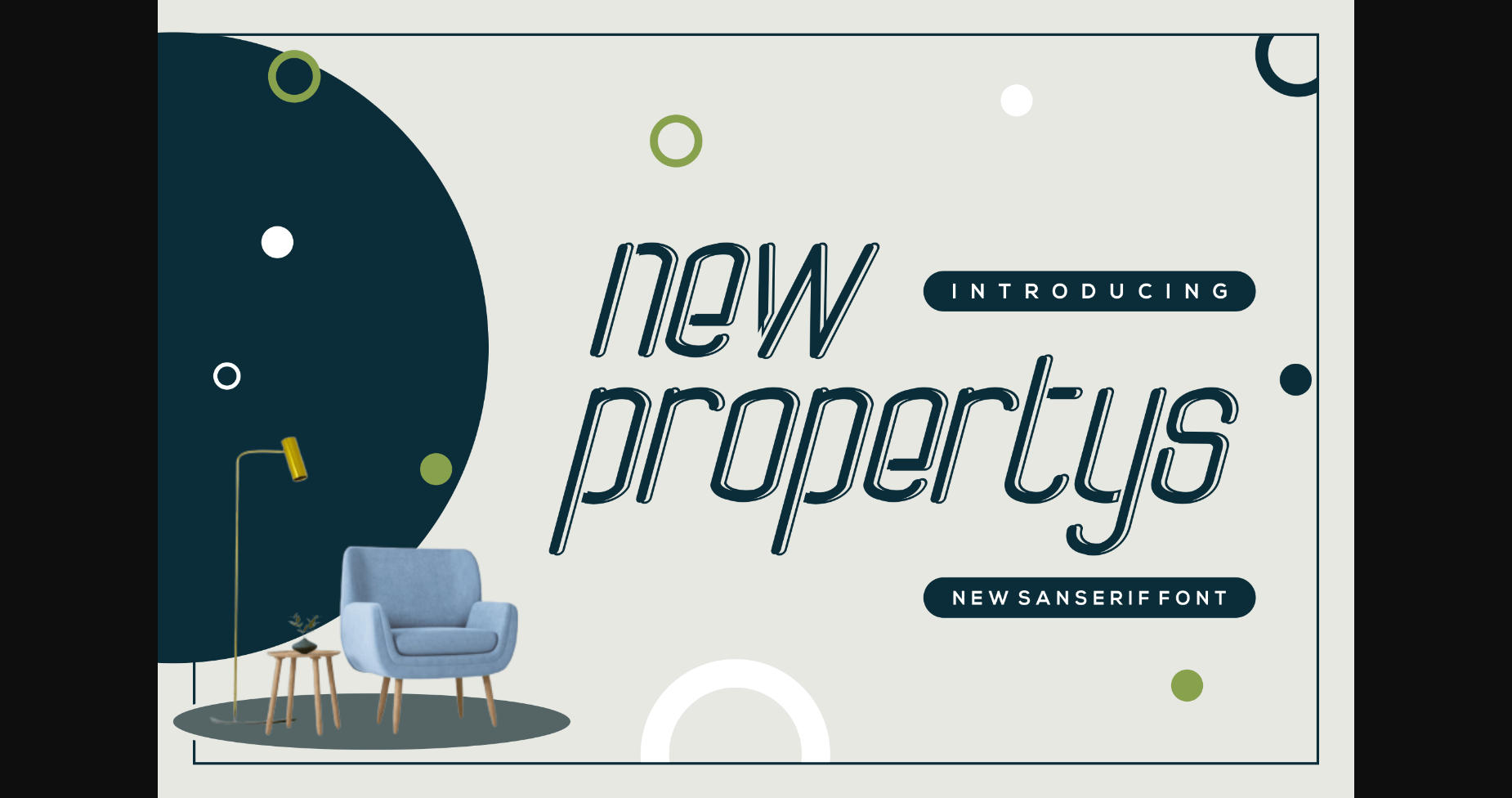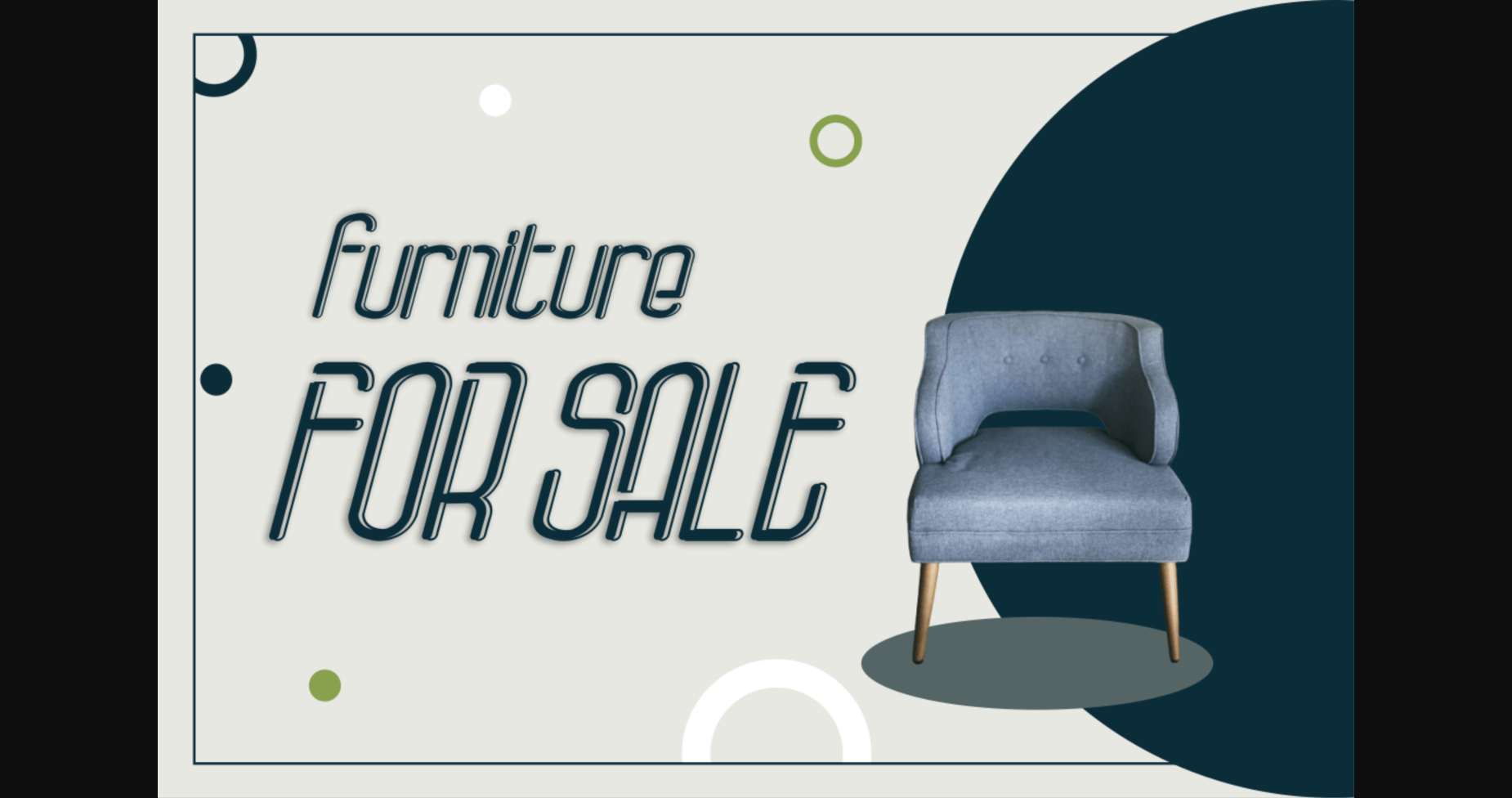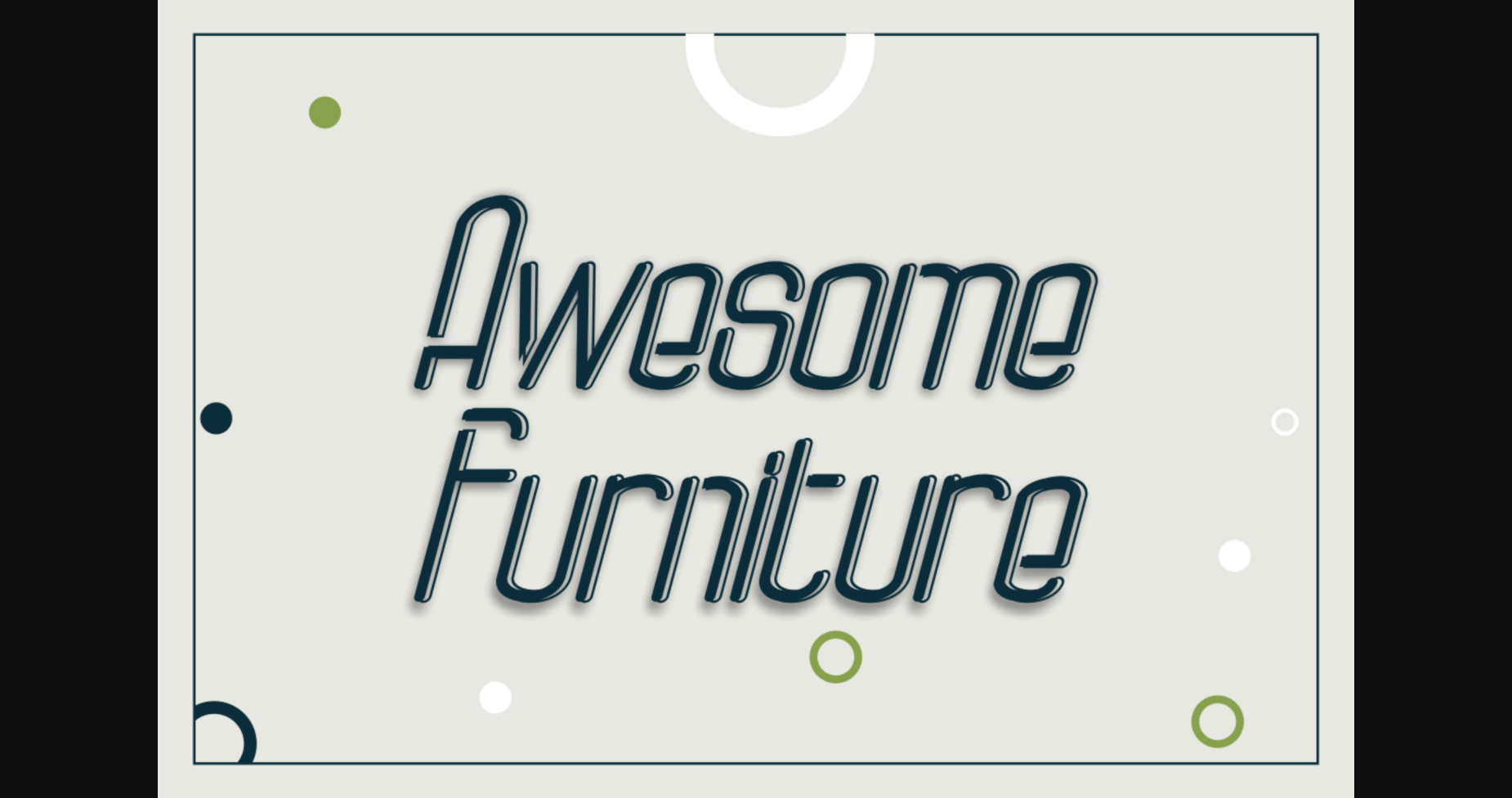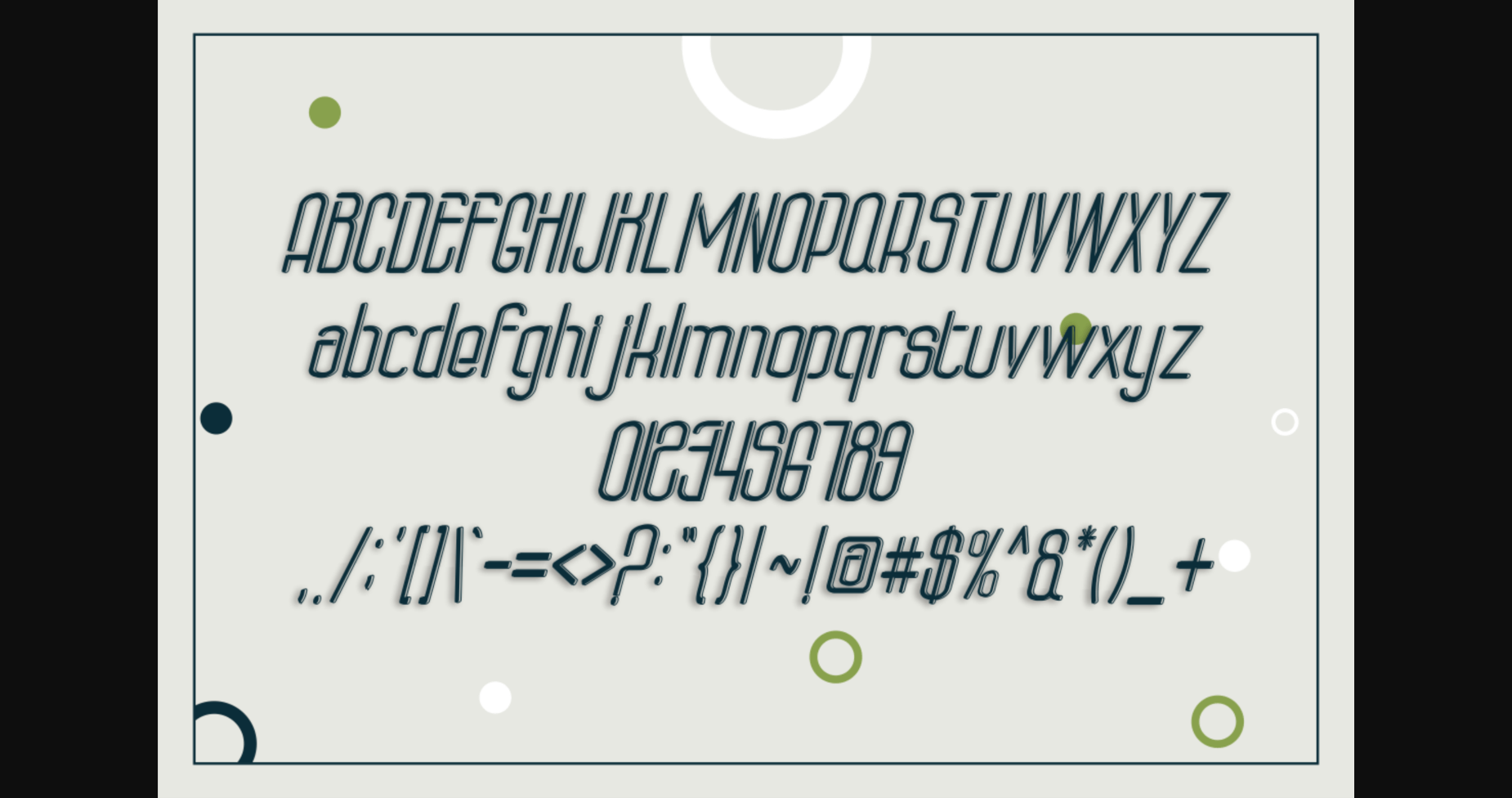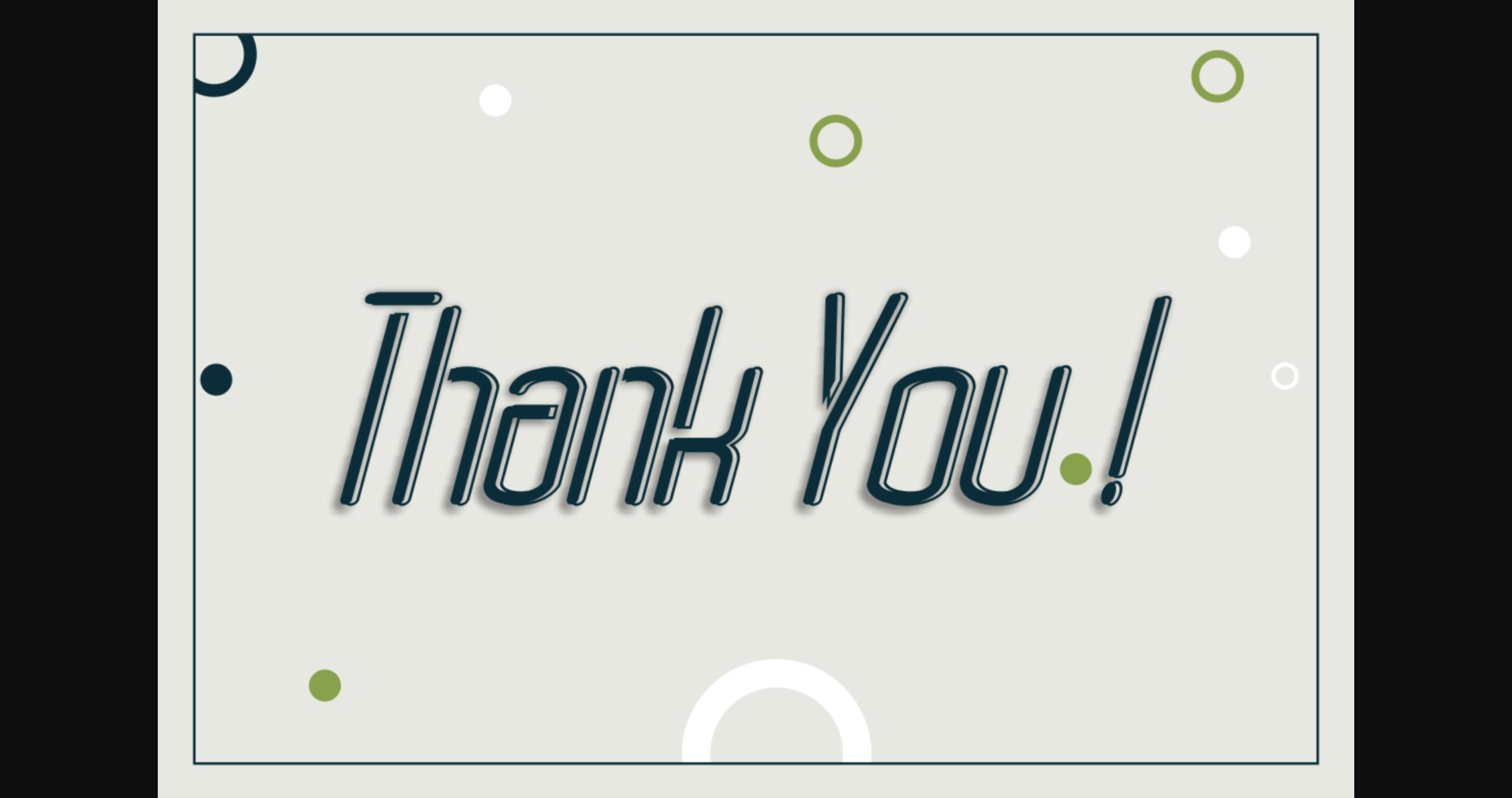
New Propertys Font
About New Propertys Font
New Propertys is a bold and creative sans serif font suitable for any branding project like logo, t-shirt printing, export, and more. It looks outstanding in a wide range of contexts.